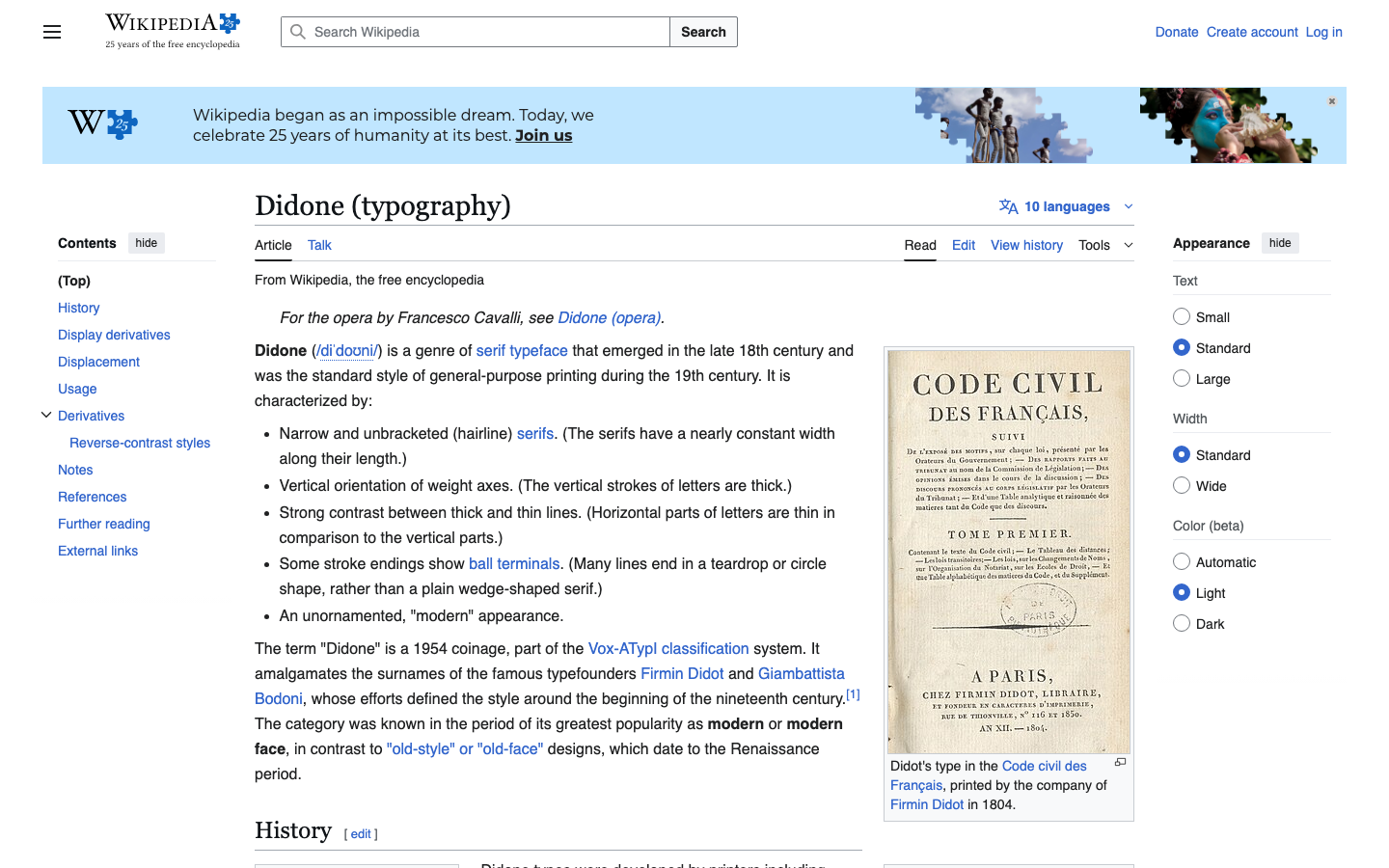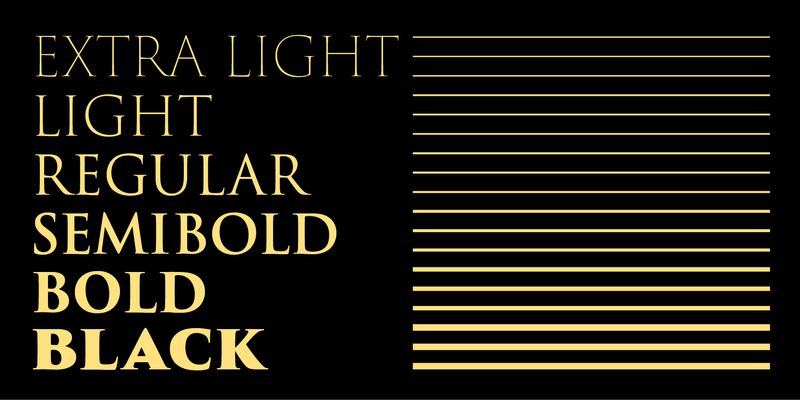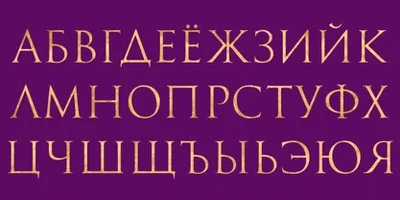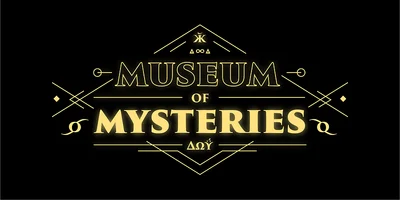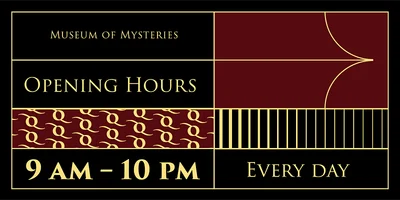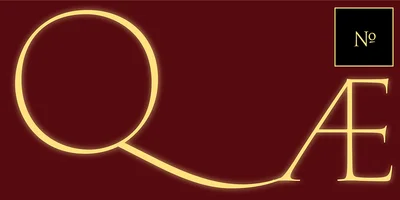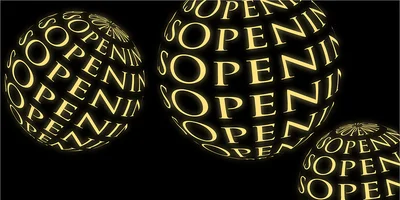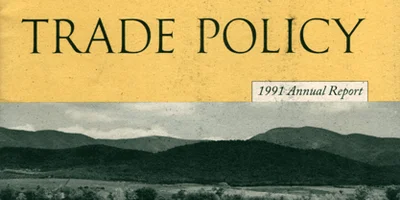
Didone vs Trajan Pro
Didone and Trajan Pro are both display typefaces sharing a elegant foundation. Where Didone leans high contrast, fashion, Trajan Pro brings formal, editorial. Compare which suits your Luxury project.
| Feature | Didone | Trajan Pro |
| Classification | display | display |
| Source | Various | Adobe |
Recommended: Didone
- high contrast, fashion design character
- Suited for Fashion and Editorial
- From various
Consider: Trajan Pro
- formal, editorial design character
- Suited for Film and Formal
- From adobe